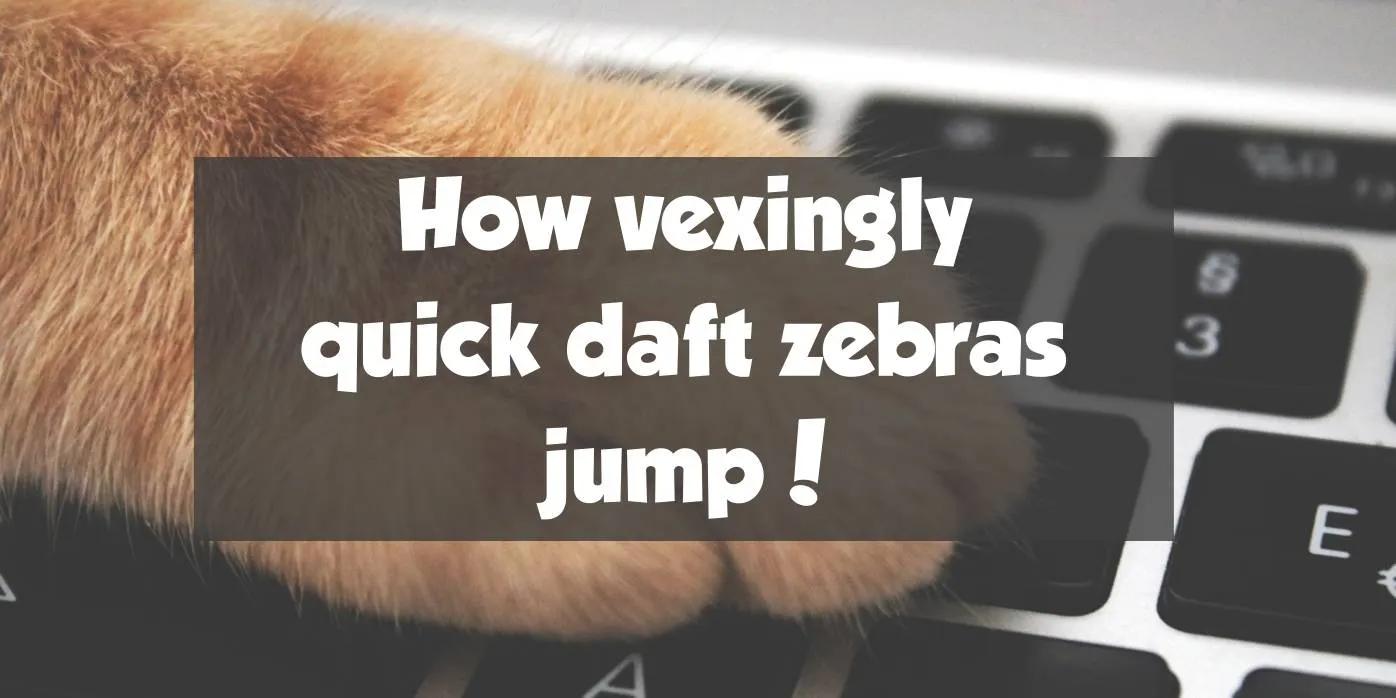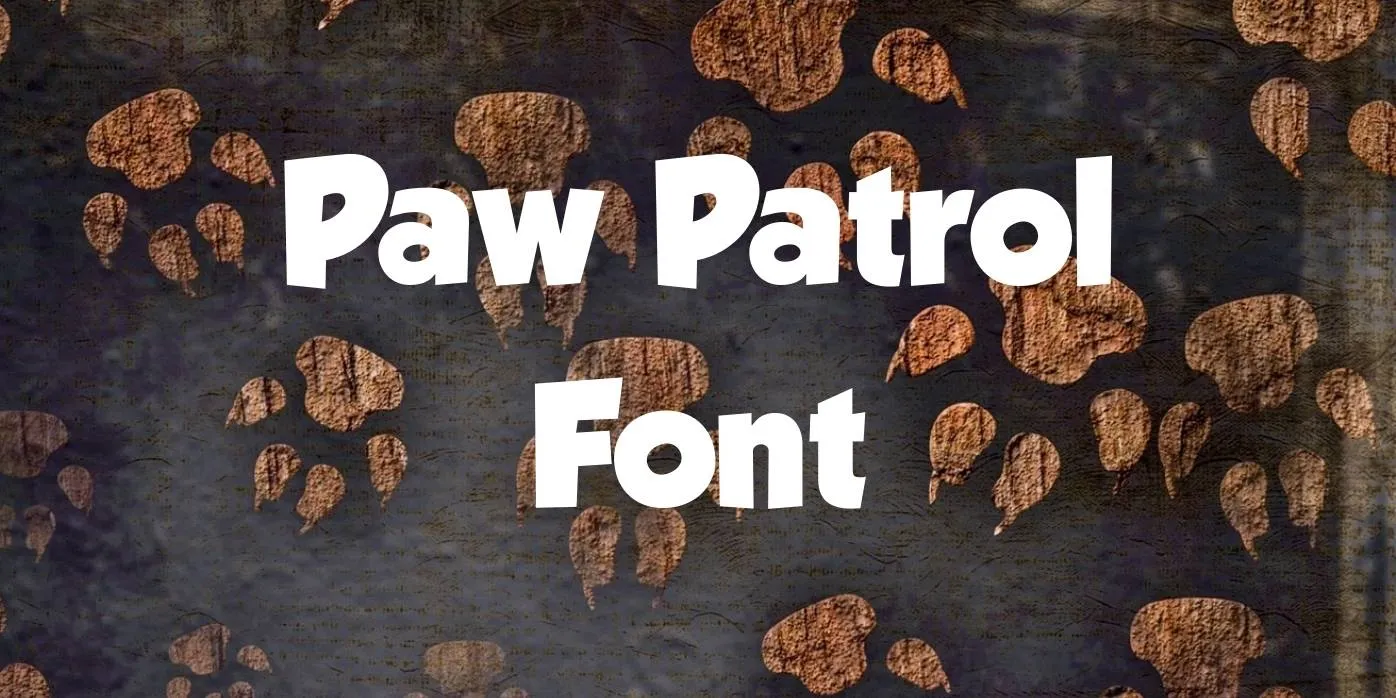
Paw Patrol Font
Paw Patrol Font was developed and published by two famous designers Alan Meeks and Colin Brignall. This font family belongs to the Display typeface.  The font was designed with children in mind and is inspired by the popular animated TV series. It’s perfect for projects that need an energetic and playful feel. This classy font is available in both regular and bold versions, so you can choose the style that best suits your needs.
If you need a font that will make your project stand out, then this Font is definitely worth checking out. Freshman Font is similar to this classy typeface. This tremendous typeface contains modern characters like Icons, pictograms, Symbols, and others. This font is a paw patrol fan must-have for all your designing needs!